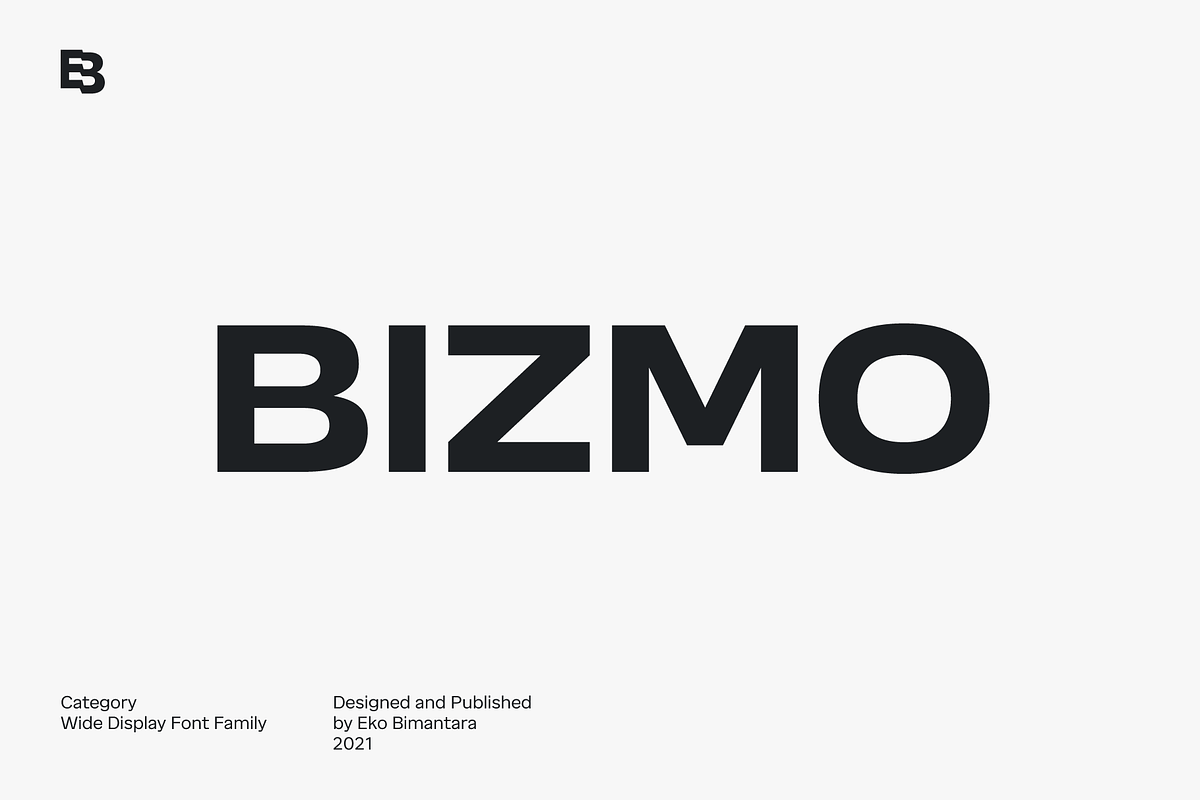
Bold, versatile, and built for impact, Bizmo; 18 Fonts of Display Family Free Download is a powerhouse typeface collection perfect for making a statement. With 18 unique styles ranging from ultra-bold to clean-lined variants, this display font family is ideal for branding, headlines, posters, editorial layouts, and anything that demands strong visual presence.
Each style in the Bizmo family has been carefully crafted to maintain consistency while offering creative flexibility. Whether you need a loud, attention-grabbing headline or a sleek and modern subtitle, Bizmo has a font to match your vision.